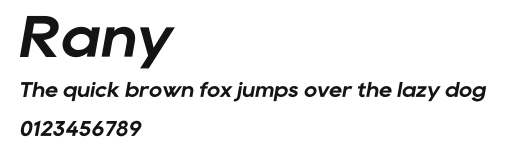
• Font Name: Rany
• Designer: Ran Mingwei
About Rany.otf
Rany.otf is a modern, elegant sans-serif font designed for ultimate readability and visual harmony. Perfect for branding, headlines, web design, and print materials.